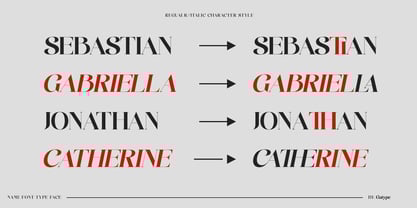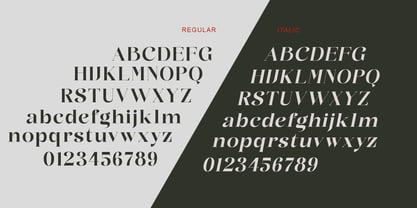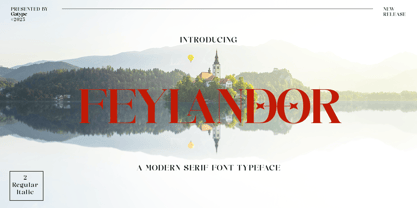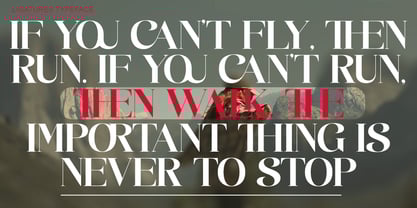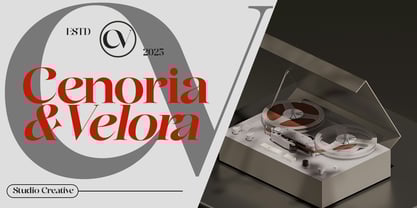
Feylandor
by Gatype
The Feylandor Font Family was designed by khaidir and published by Gatype. Feylandor contains 2 styles and family package options. More about this family
Feylandor is a serif font that blends the beauty of fantasy with the elegance of classic typography. With its strong yet graceful serif lines, this font exudes a luxurious and exclusive feel, perfect for works that desire an elegant look.
Feylandor is designed to be versatile: elegant enough for premium editorial and branding, yet expressive enough for fantasy designs, posters, and book covers.